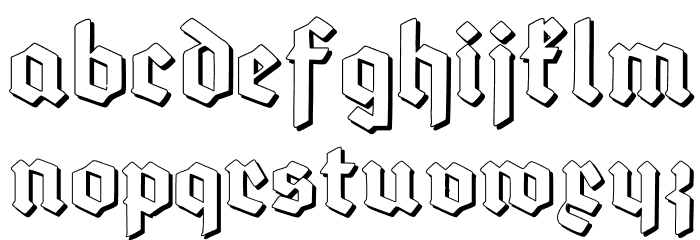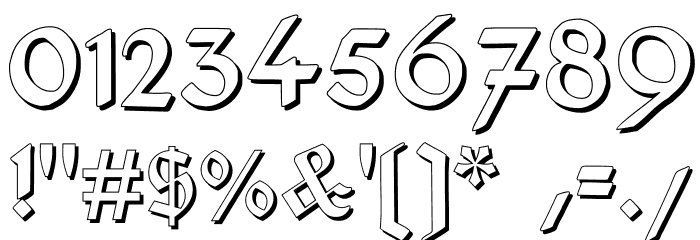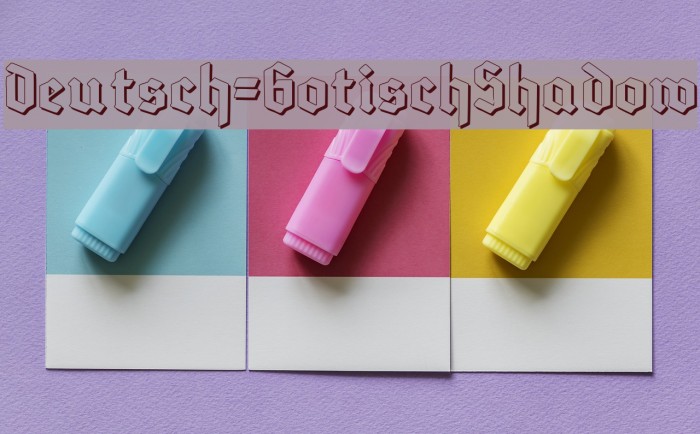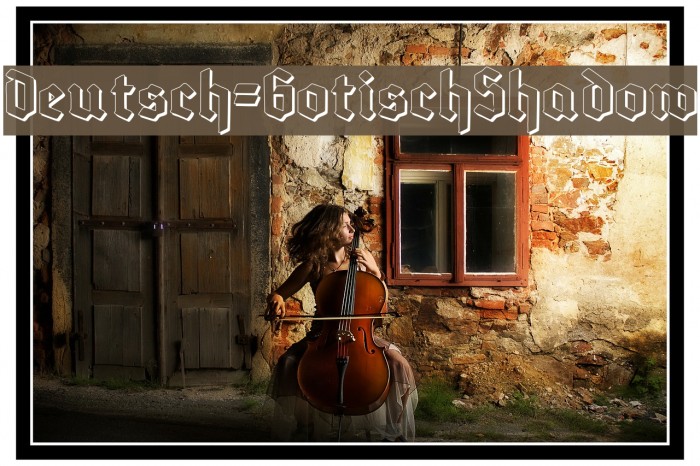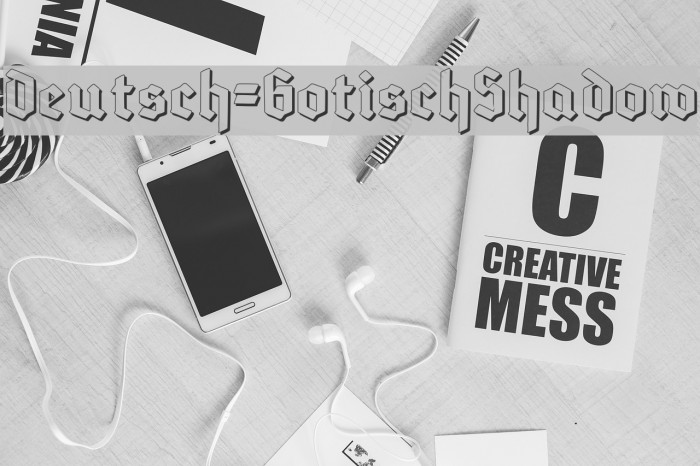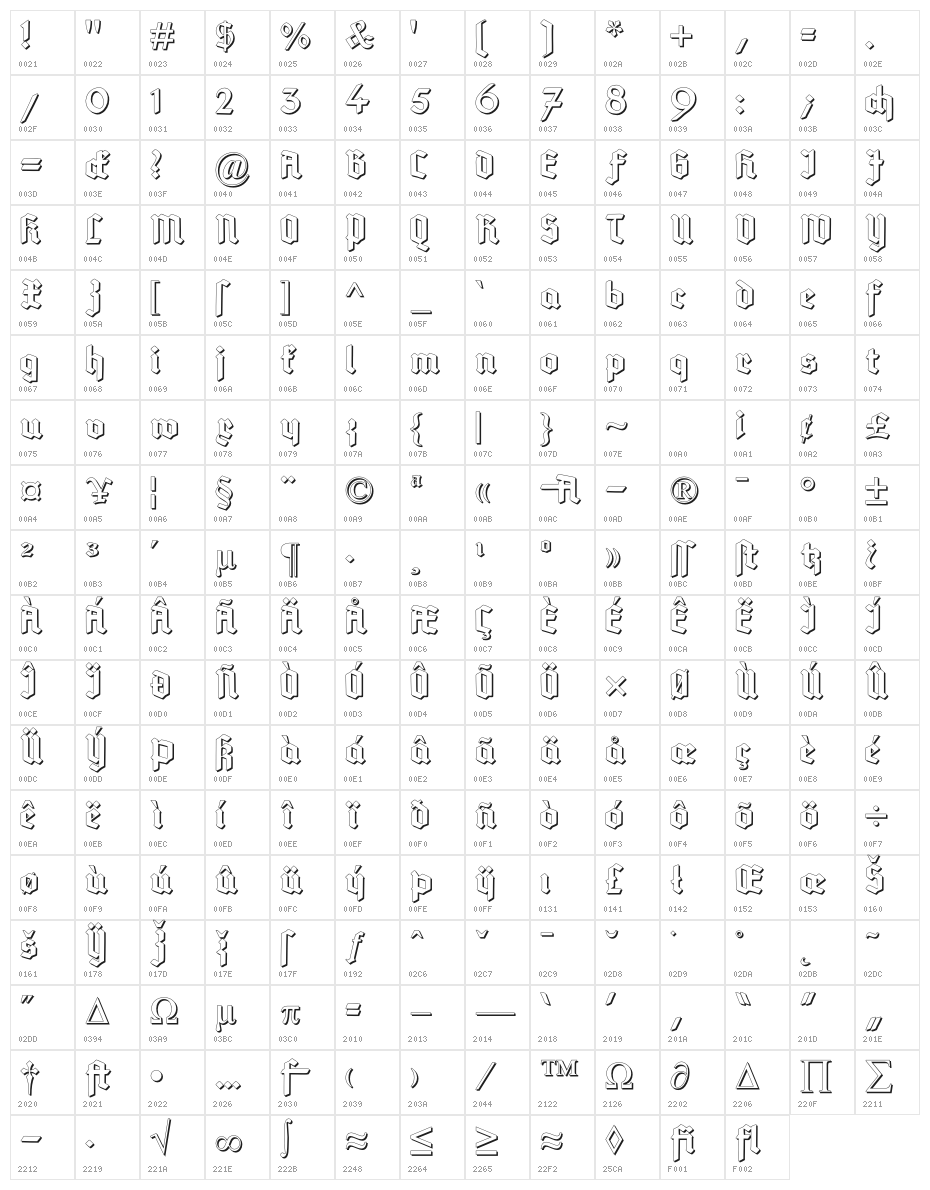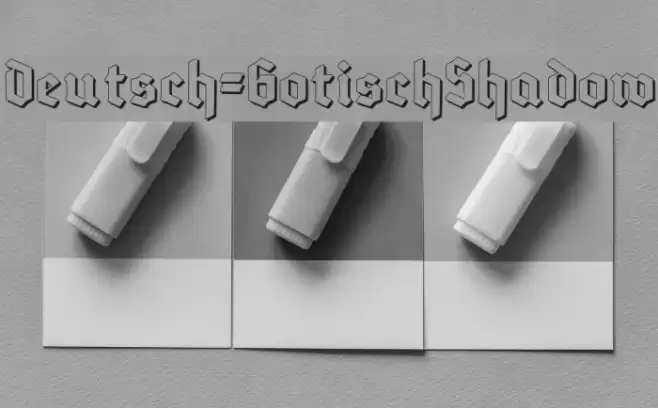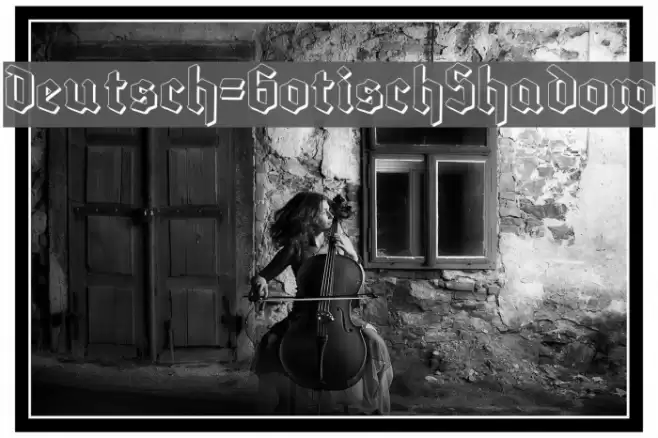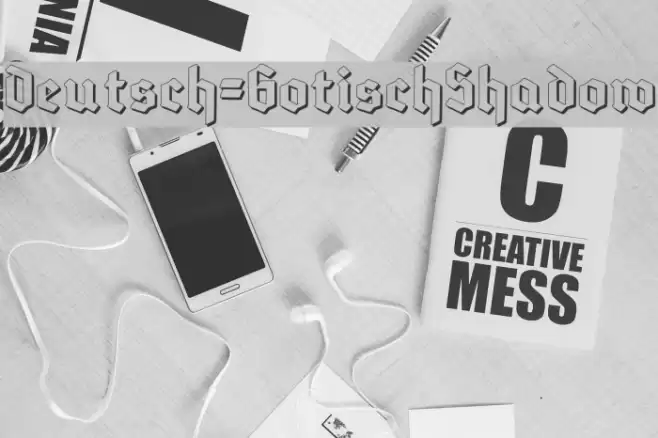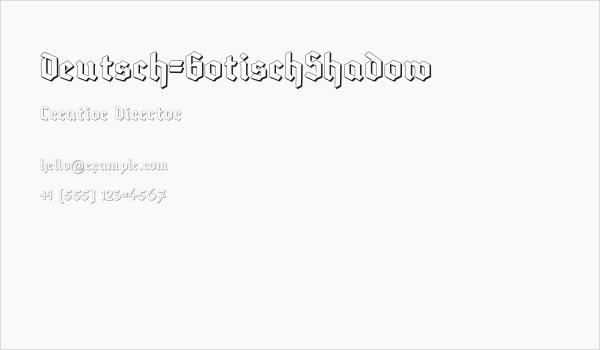
Deutsch-GotischShadow Font
This font features a bold and dramatic Gothic style with a shadow effect that adds depth and dimension. The characters are intricately designed with sharp angles and a distinct medieval flair, reminiscent of traditional blackletter typography. The uppercase and lowercase letters maintain a consistent style, with the shadow creating a three-dimensional appearance. Numbers and special characters are equally stylized, ensuring a cohesive look across all text elements. This font is ideal for projects that require a historical or vintage aesthetic, offering a unique and eye-catching design.
A bold Gothic font with a shadow effect, offering a dramatic and historical style.
- Proposed Projects: Ideal for vintage posters, historical event invitations, book covers, and branding that requires a classic or medieval touch.
- Overall Style: Vintage
- Use Case: Headlines, Logos, Decorative text